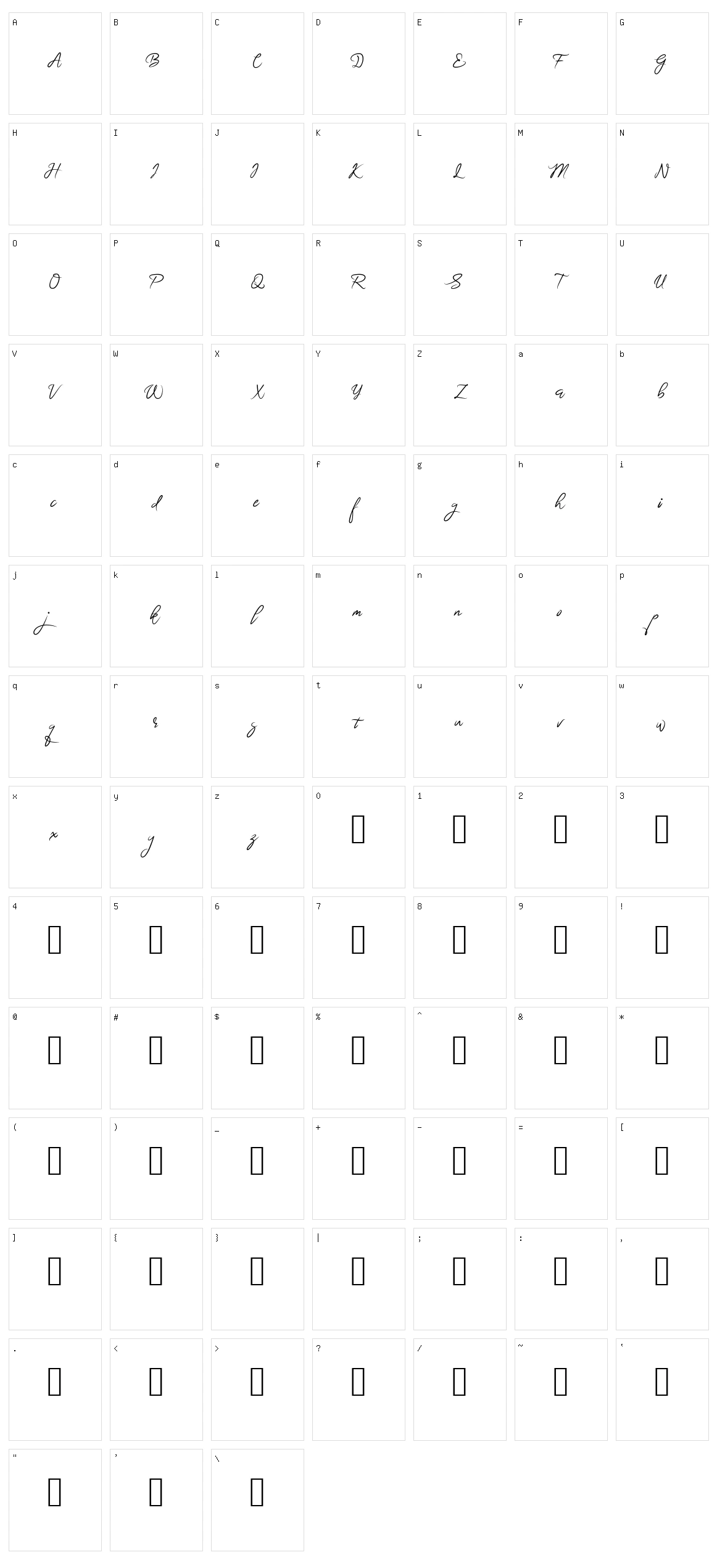
The free font Brightnes Signature is carefully designed by selawetype, showcasing a thoughtful balance of creativity and usability and falls under the Script font style. When you download the ZIP file, it contains only 19.31 KB of font files, making it lightweight and quick to download. Please review the license details below to understand permitted usage and distribution rights. If license information is not available, we recommend using this font for personal projects only or contacting the author directly for commercial usage permissions.